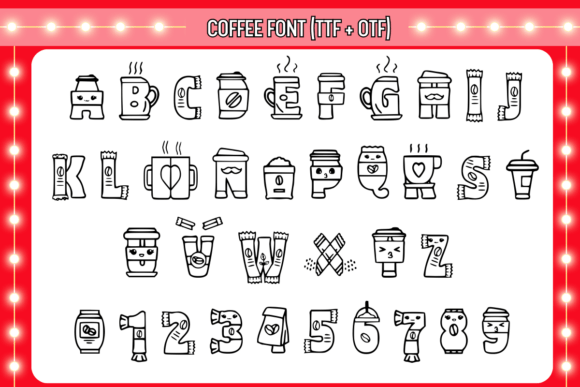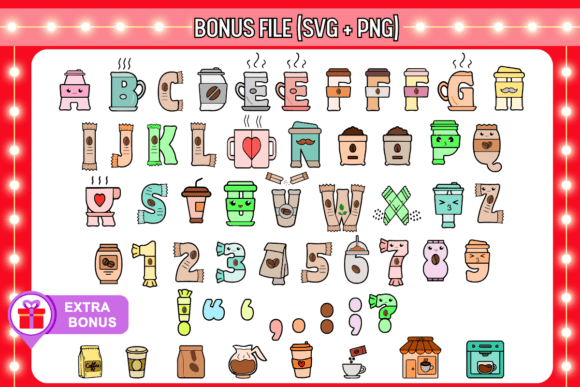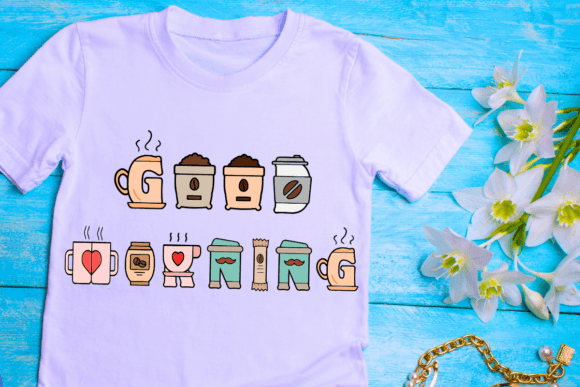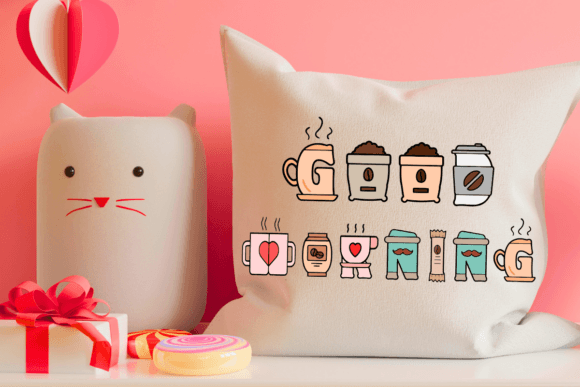
Coffee Font: A Unique and Creative Design Inspired by Coffee
Coffee Font is a decorative font that has taken the design world by storm. As the name suggests, each letter in this font is creatively made from coffee-related items, such as beans, cups, and spills. This unique design makes it a perfect choice for designers and crafters looking to add a touch of personality to their projects.
What is Coffee Font?
Coffee Font is a type of decorative font where each letter is designed using coffee-related elements. The font is made up of various coffee-themed items, such as coffee beans, cups, saucers, and even spills. The creative use of these elements creates a unique and eye-catching design that is sure to stand out.
Features of Coffee Font
• Unique Design: Each letter in the Coffee Font is carefully crafted using coffee-related items, making it a one-of-a-kind design.
• Coffee-Themed Elements: The font features a range of coffee-themed elements, including coffee beans, cups, saucers, and spills.
• Decorative: Coffee Font is a decorative font, making it perfect for use in creative projects where a touch of personality is desired.
• Customizable: The font can be customized to suit various design needs, including font size, color, and style.
Uses of Coffee Font
Coffee Font can be used in a variety of creative projects, including:
• Graphic Design: Coffee Font can be used to create eye-catching graphics, such as logos, posters, and brochures.
• Crafting: The font can be used in various crafting projects, such as card making, scrapbooking, and DIY gifts.
• Digital Art: Coffee Font can be used to create unique digital art, such as illustrations and paintings.
• Wedding and Event Design: The font can be used to create custom wedding and event designs, such as invitations, menus, and signage.
Benefits of Using Coffee Font
Using Coffee Font in your designs offers several benefits, including:
• Uniqueness: Coffee Font adds a touch of uniqueness to your designs, setting them apart from others.
• Creativity: The font inspires creativity, allowing you to think outside the box and come up with innovative design ideas.
• Themed Consistency: Coffee Font helps maintain a consistent theme in your designs, especially when working on coffee-related projects.
Tips and Variations
Here are some tips and variations to consider when using Coffee Font:
• Experiment with Colors: Try different colors and color combinations to add depth and interest to your designs.
• Mix and Match: Mix and match Coffee Font with other fonts to create a unique and visually appealing design.
• Add Textures and Patterns: Add textures and patterns to your designs to give them a more organic and creative feel.
Coffee Font is a unique and creative font that is perfect for designers and crafters looking to add a touch of personality to their projects. With its coffee-themed elements and decorative design, Coffee Font is sure to stand out in any design project. Whether you’re working on a graphic design, crafting project, or digital art, Coffee Font is a great choice.